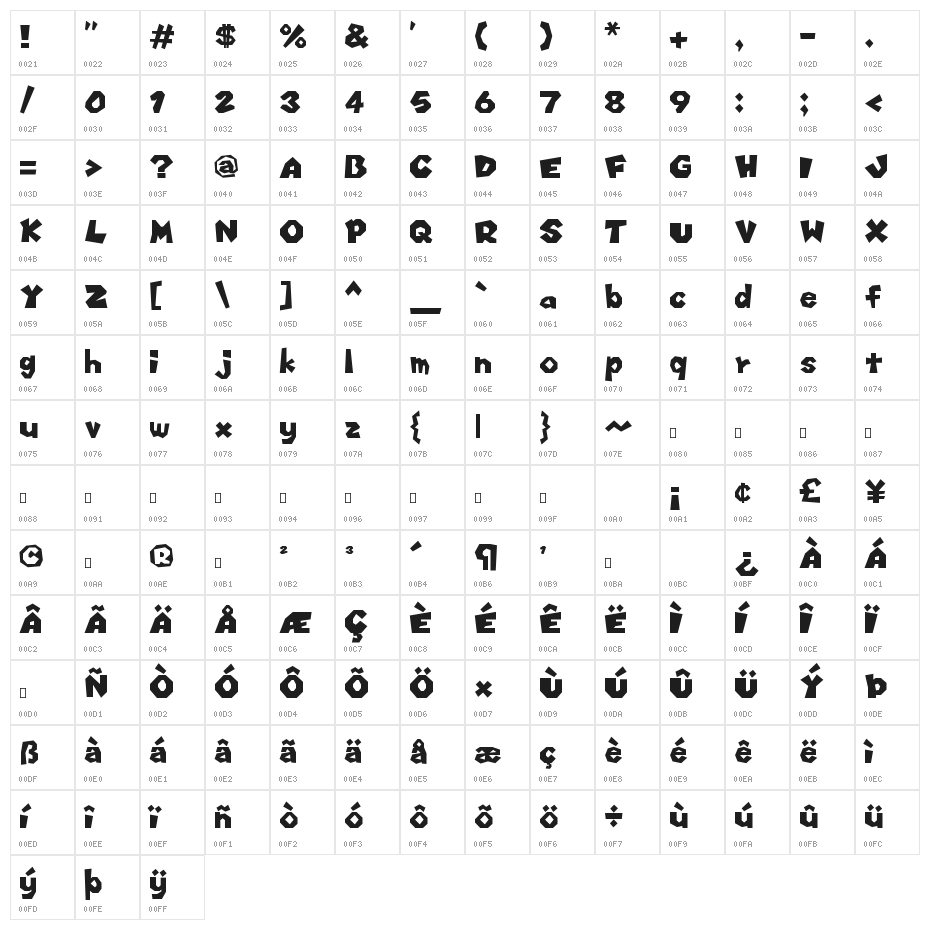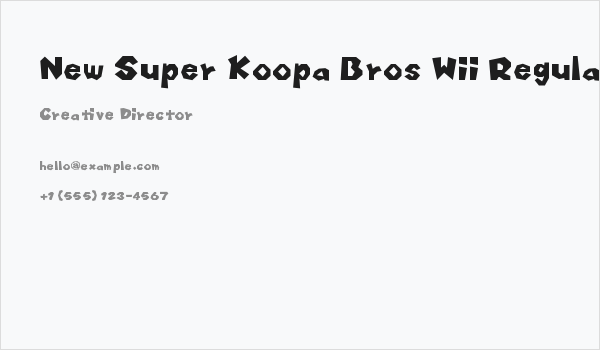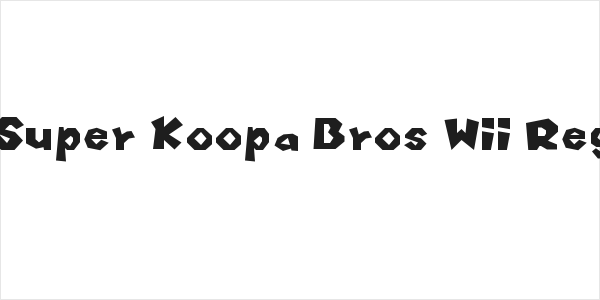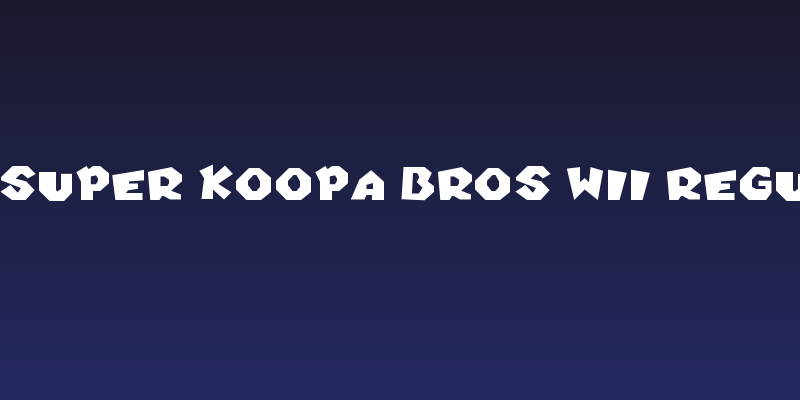
New Super Koopa Bros Wii Regular Font
New Super Koopa Bros Wii Regular Description
This font features a bold and playful design with angular, irregular shapes that give it a dynamic and energetic feel. The characters are heavily stylized, with sharp edges and a slightly chaotic appearance, reminiscent of a comic or video game aesthetic. The uppercase and lowercase letters maintain a consistent style, while the numbers and special characters complement the overall look. This font is ideal for projects that require a fun, eye-catching typeface with a strong personality.
| Overall Style | Playful, Energetic, Comic |
| Proposed Projects | Perfect for video game titles, comic book covers, children's posters, and playful branding. |